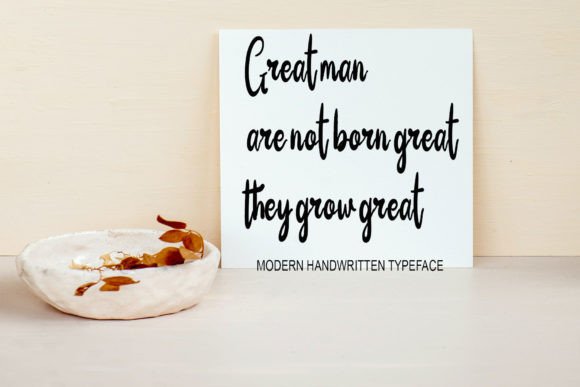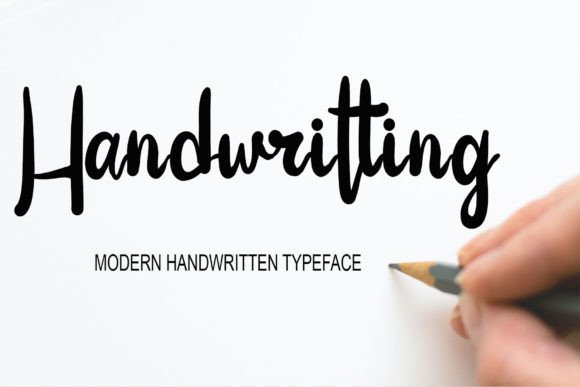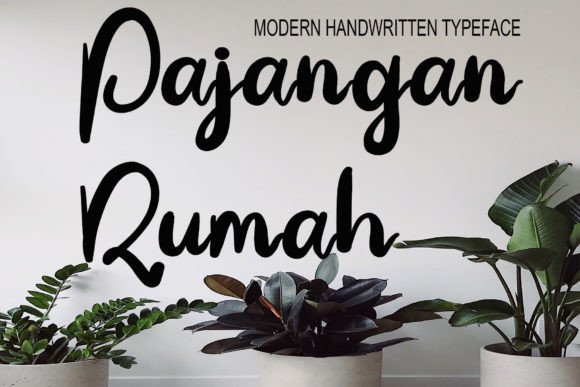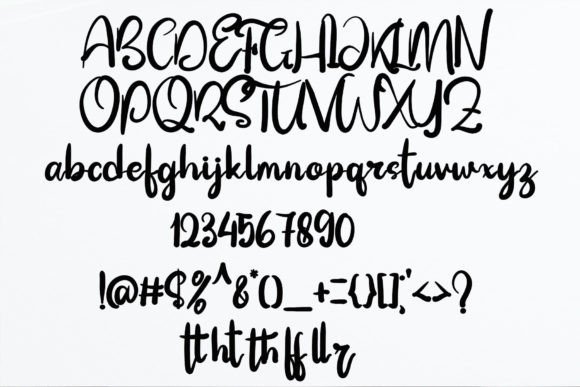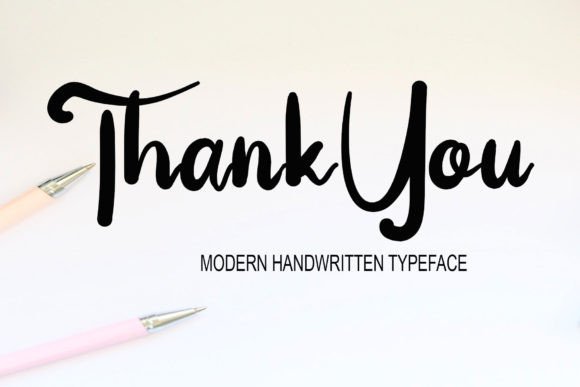
Introducing Agam Tuha Font: The Modern Handwritten Typeface for Creative Projects
Are you looking for a font that adds a touch of elegance and playfulness to your designs? Look no further than Agam Tuha Font, a modern handwritten typeface that’s perfect for a wide range of creative projects. In this article, we’ll explore the features and benefits of Agam Tuha Font, and show you how to make the most of this versatile and stylish font.
What is Agam Tuha Font?
Agam Tuha Font is a beautifully crafted handwritten font that’s designed to add a personal touch to your designs. With its unique playfulness and modern style, this font is perfect for designers, crafters, and anyone looking to add a touch of whimsy to their projects. Whether you’re creating a website, designing a wedding invitation, or crafting a business card, Agam Tuha Font is the perfect choice.
Features of Agam Tuha Font
So, what makes Agam Tuha Font so special? Here are just a few of its key features:
- Modern handwritten style: Agam Tuha Font has a fresh and modern look that’s perfect for contemporary designs.
- Unique playfulness: This font has a playful and whimsical feel that’s sure to add a touch of personality to your projects.
- Highly versatile: Agam Tuha Font can be used for a wide range of projects, from websites and wedding invitations to business cards and social media graphics.
- Easy to read: Despite its playful style, Agam Tuha Font is highly legible and easy to read, making it perfect for body text and headlines.
Uses for Agam Tuha Font
So, what can you use Agam Tuha Font for? The possibilities are endless! Here are just a few ideas to get you started:
- Websites: Add a personal touch to your website with Agam Tuha Font, perfect for headings, titles, and body text.
- Wedding invitations: Make your wedding invitation stand out with Agam Tuha Font, perfect for formal and informal designs.
- Business cards: Create a lasting impression with Agam Tuha Font, perfect for business cards and professional networking.
- Social media graphics: Add a touch of personality to your social media graphics with Agam Tuha Font, perfect for Facebook, Instagram, and Twitter.
- Logos and branding: Use Agam Tuha Font to create a unique and memorable logo for your brand.
- Greeting cards and posters: Add a personal touch to your greeting cards and posters with Agam Tuha Font.
- Procreate font: Use Agam Tuha Font in your Procreate designs, perfect for digital art and illustrations.
- Planner prints: Add a touch of personality to your planner prints with Agam Tuha Font.
Tips for Using Agam Tuha Font
Here are a few tips for getting the most out of Agam Tuha Font:
- Experiment with different sizes: Agam Tuha Font looks great in a range of sizes, from small body text to large headings.
- Mix and match with other fonts: Combine Agam Tuha Font with other fonts to create a unique and eye-catching design.
- Use it for headlines and titles: Agam Tuha Font is perfect for headlines and titles, adding a touch of personality and whimsy to your designs.
- Add a personal touch: Use Agam Tuha Font to add a personal touch to your designs, whether it’s a wedding invitation or a business card.
Agam Tuha Font is a versatile and stylish handwritten typeface that’s perfect for a wide range of creative projects. With its unique playfulness and modern style, this font is sure to add a touch of personality and whimsy to your designs. Whether you’re a designer, crafter, or simply looking for a font to add some flair to your projects, Agam Tuha Font is the perfect choice. So why not give it a try and see what amazing designs you can create?